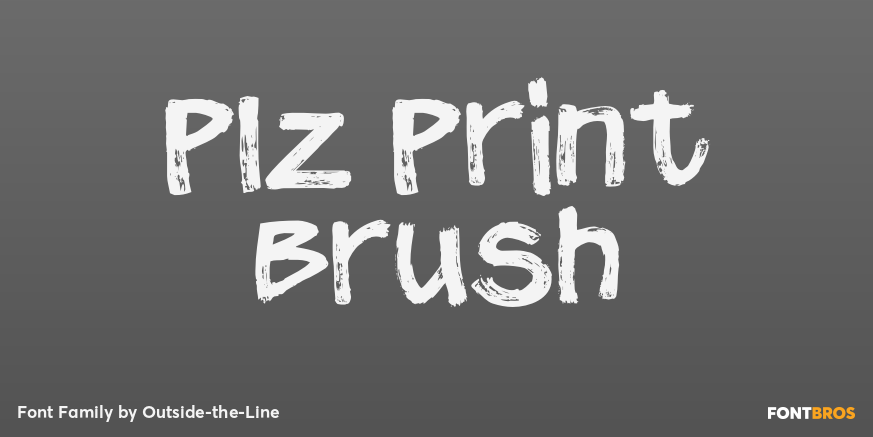
HomeFont BrosDistressedPlz Print Brush DistressedScripts: CasualSpecial EffectHandwritten Plz Print Brush FacebookXPinterestWhatsApp 1 of 1 About Plz Print Brush is a good solid font for posters, headlines and accent words like – SALE! It gives the slightly irregular look of handlettering.  DOWNLOAD NOW People also explored Awesome Sunflower Font Jacqualine Font Saint Paddy Dings Font Flower Shower Font Anytime Font Sew Font Martyna Signature Font Prety Girl Only You Font 234 0 TagsPlz Print Brush Font Previous articleMonophonicNext articleHullabaloo LEAVE A REPLY Cancel reply Comment: Please enter your comment! Name:* Please enter your name here Email:* You have entered an incorrect email address! Please enter your email address here Website: Save my name, email, and website in this browser for the next time I comment. Personal Use Free Farmhouse Christmas Personal Use Free Read more about this font Crack Man Personal Use Free Read more about this font Elevate Your Halloween Designs with 500 Free High-Quality PNG Clipart Files Personal Use Free Read more about this font Karmatic Arcade Personal Use Free Read more about this font BLOG How to Cut Any Font on Cricut: Convert a Font to SVG (Free) Turn any font into a clean SVG so it cuts crisp on Cricut - a quick 3-step workflow using a free font-to-SVG tool. How to Install and Use Fonts on Windows, macOS, and Web Projects The 10 Best Handwriting Fonts to Add Personality to Your Designs Modern Sans-Serif Fonts That Brands Love in 2025